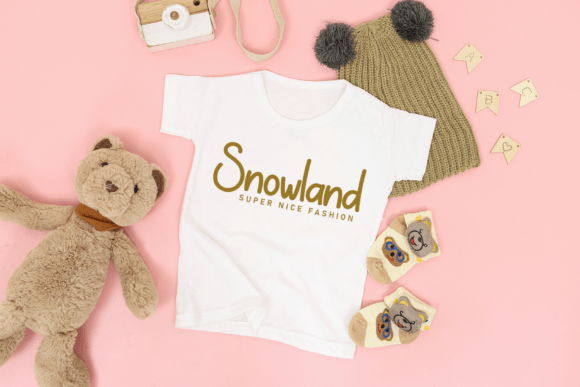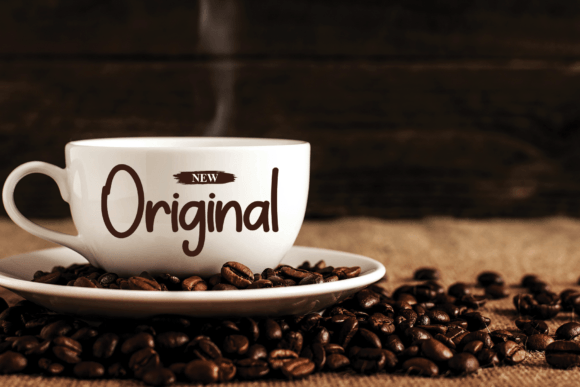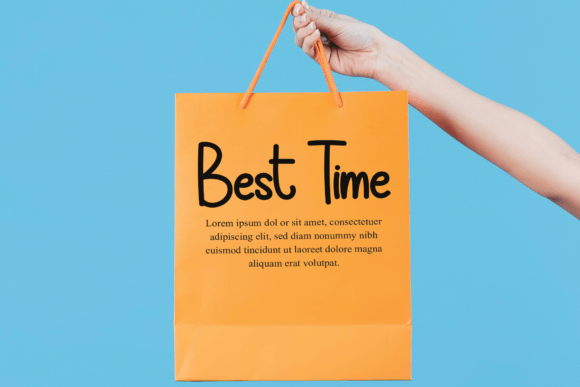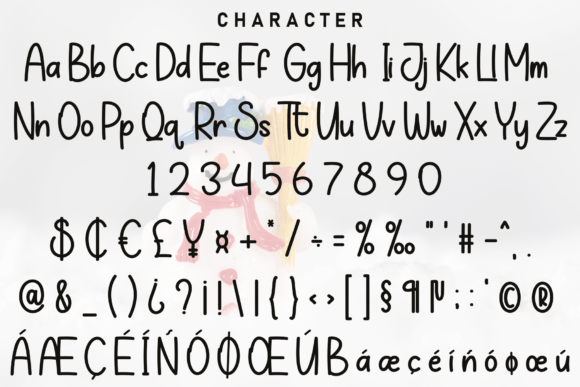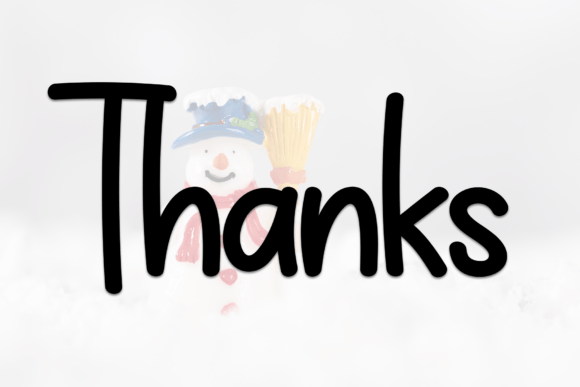
Introduction to Snowday Font
Who hasn’t felt that rush of excitement when waking up to a snow-covered world outside? The thrill of a snowday is a universal experience that sparks creativity and playfulness. For designers, it’s the perfect inspiration to break out of their usual routine and try something new. And what better way to capture that carefree spirit than with the Snowday Font?
This high-quality script font is a design resource that’s sure to bring a smile to anyone’s face. Its bold, marker-like strokes evoke a sense of spontaneity and fun, making it perfect for adding a touch of whimsy to your next creative project. With a transparent background and a free download available, you can easily integrate Snowday Font into your design without any hassle.
Whether you’re working on a project that needs a little pick-me-up or just want to add some personality to your social media posts, Snowday Font is an invaluable tool that’s sure to bring a touch of magic to your design.
Key Features of Snowday Font
- Unique characteristics: Whimsical, hand-drawn style with a touch of winter wonderland magic
Honest Review: Snowday Font
As a designer, I’m always on the lookout for high-quality design resources that can elevate my creative projects. The Snowday Font is one such resource that caught my attention recently. In this review, I’ll share my honest thoughts on what works well and what doesn’t.
- Clean Design – The Snowday Font has a clean and minimalistic design that makes it perfect for modern designs.
- Transparent Background – The transparent background feature makes it easy to overlay text on images, which is a huge plus for designers.
- Limited Characters – The Snowday Font only has a limited number of characters, which might not be ideal for longer texts.
- No Variations – There aren’t many variations of the font, which might limit its usage in certain designs.
Overall, I think the Snowday Font is a great resource for designers who need a clean and simple font for their creative projects. While it has some limitations, its free download and transparent background features make it a great value for designers on a budget.
The Snowday Font is perfect for creative projects such as:
- Typography projects